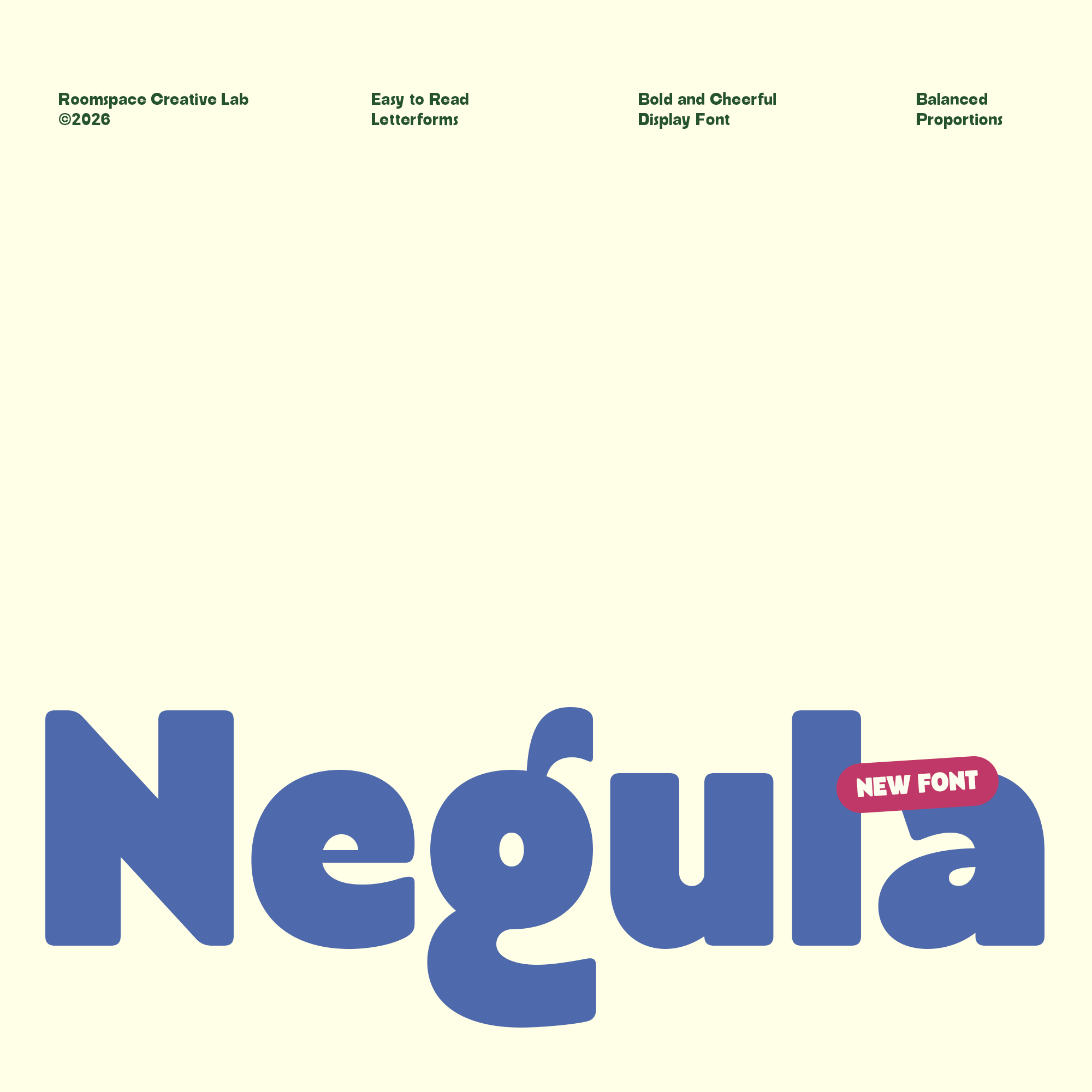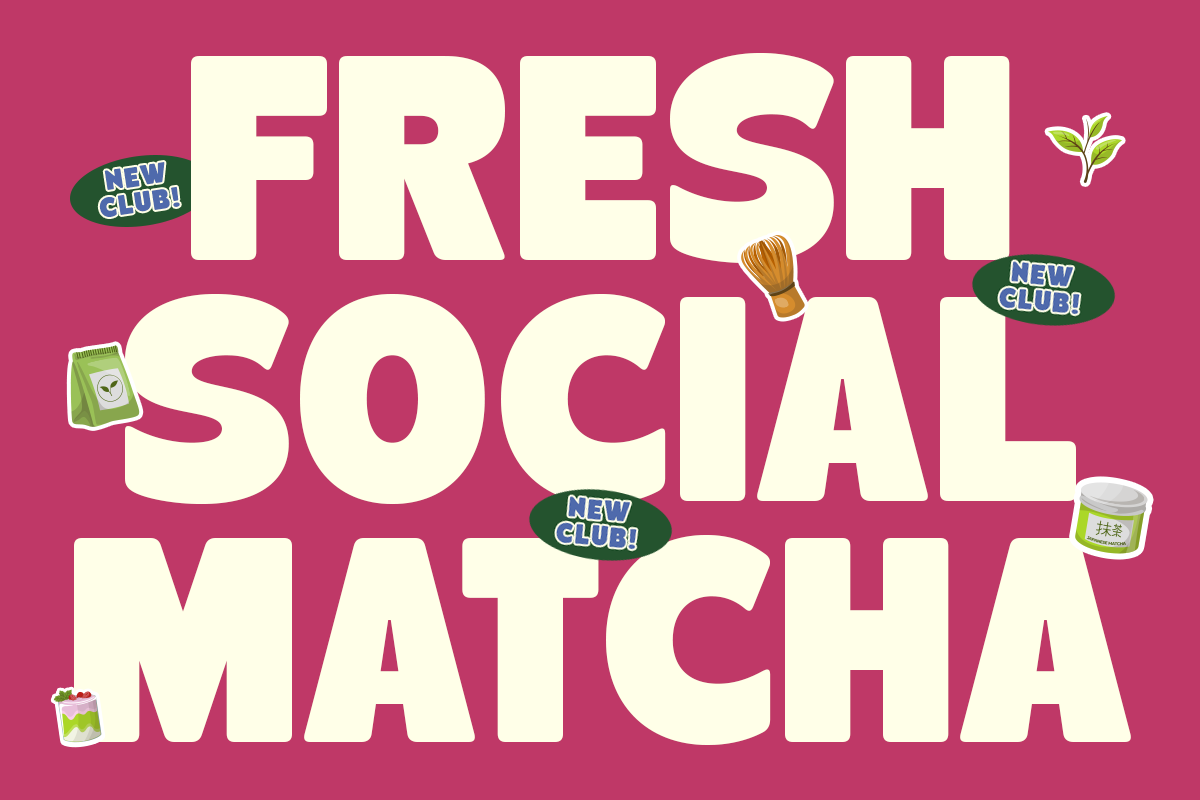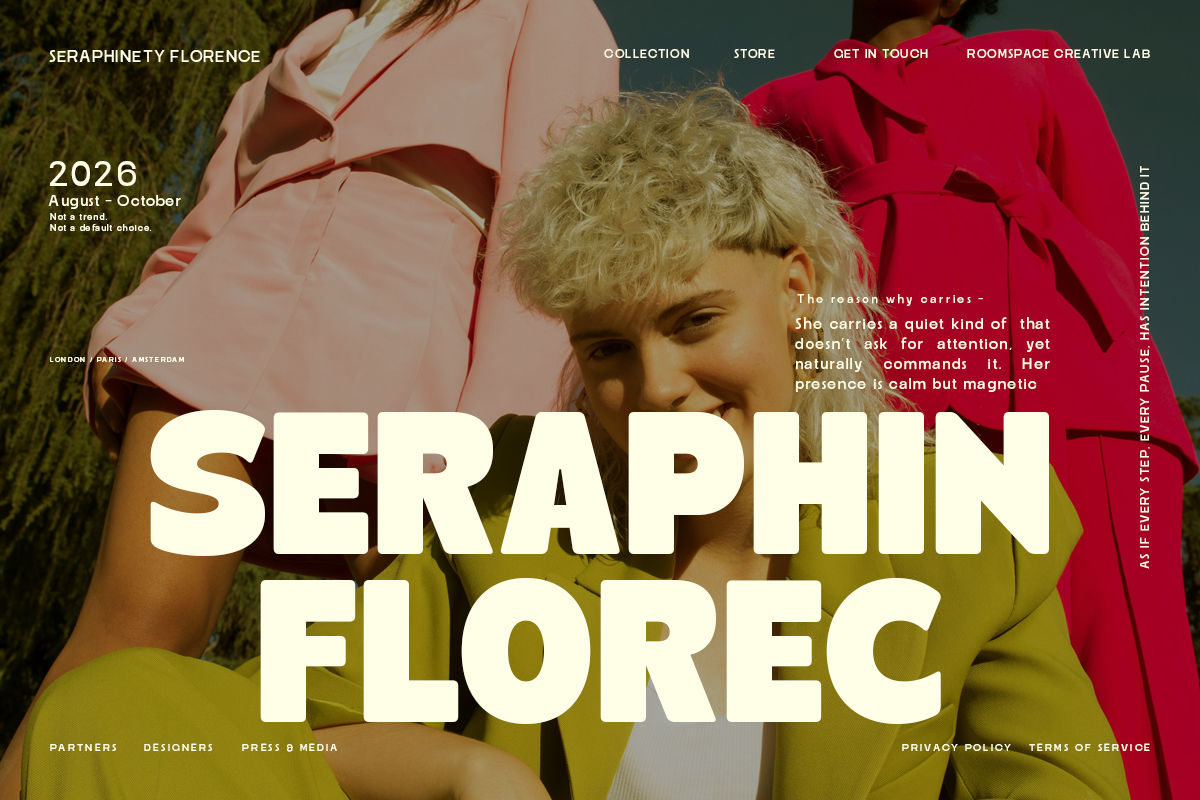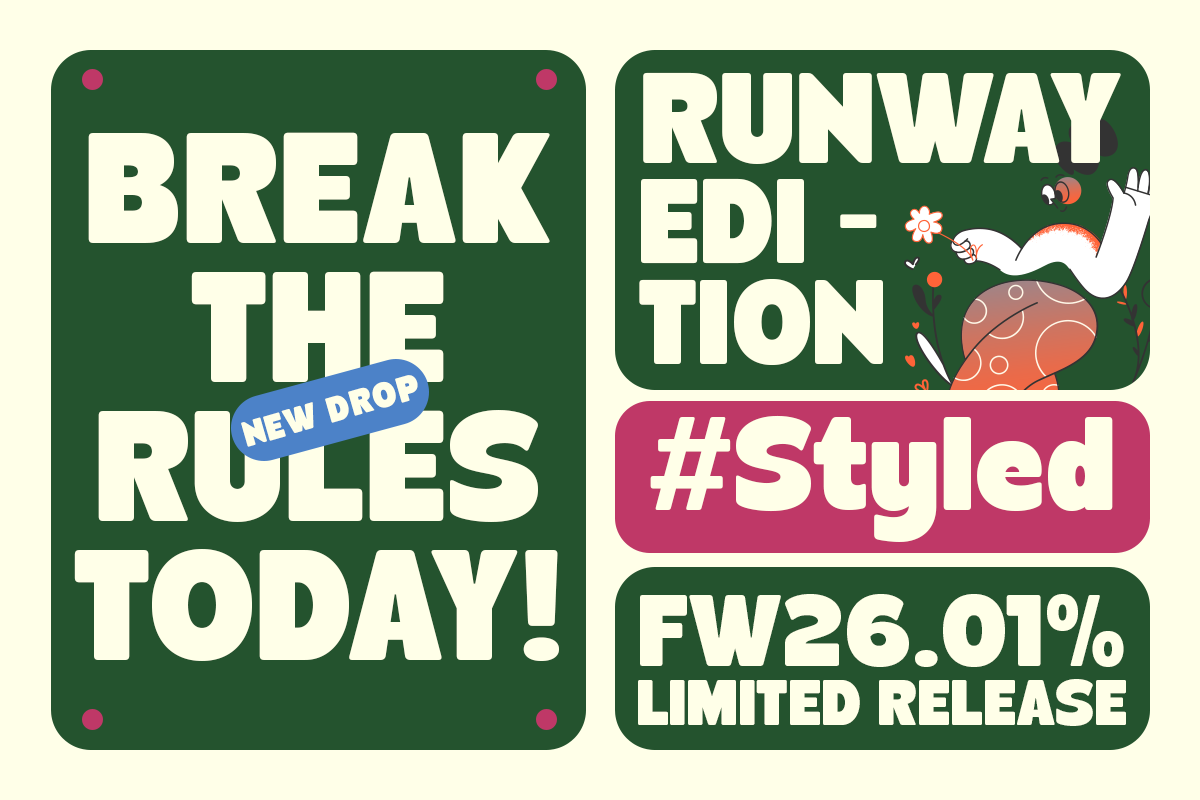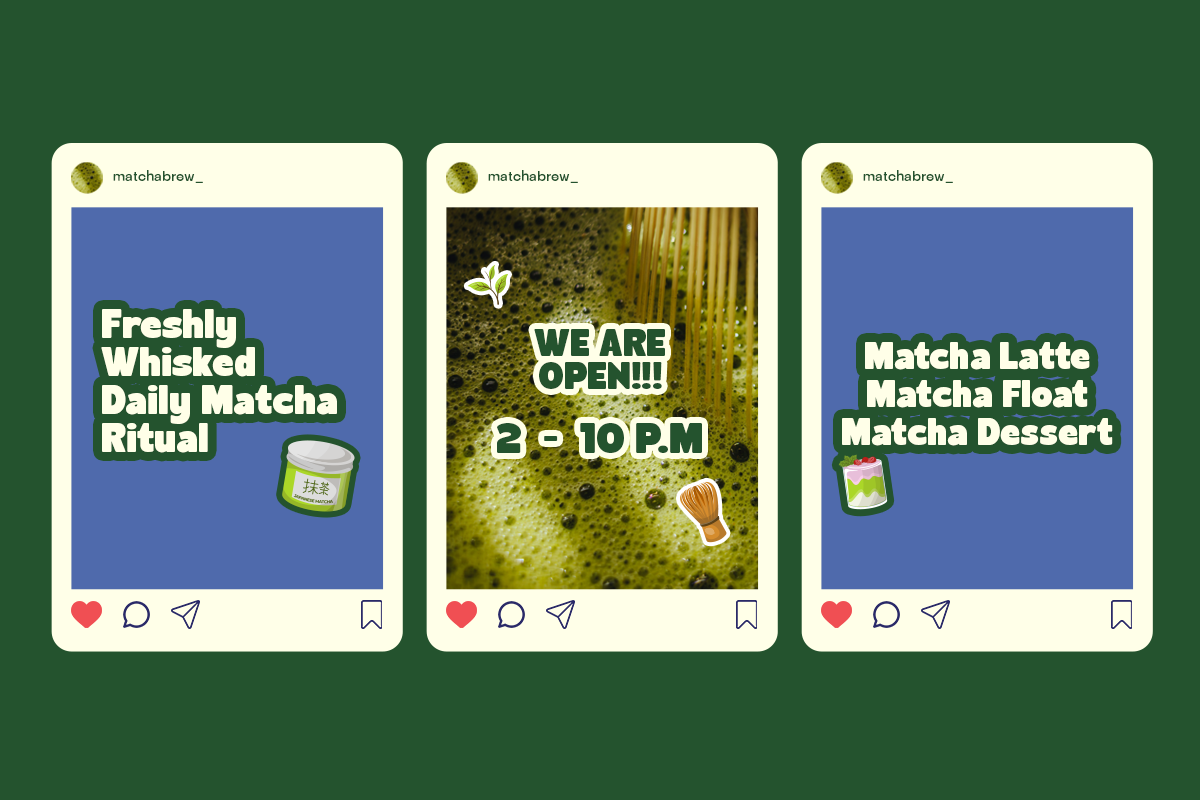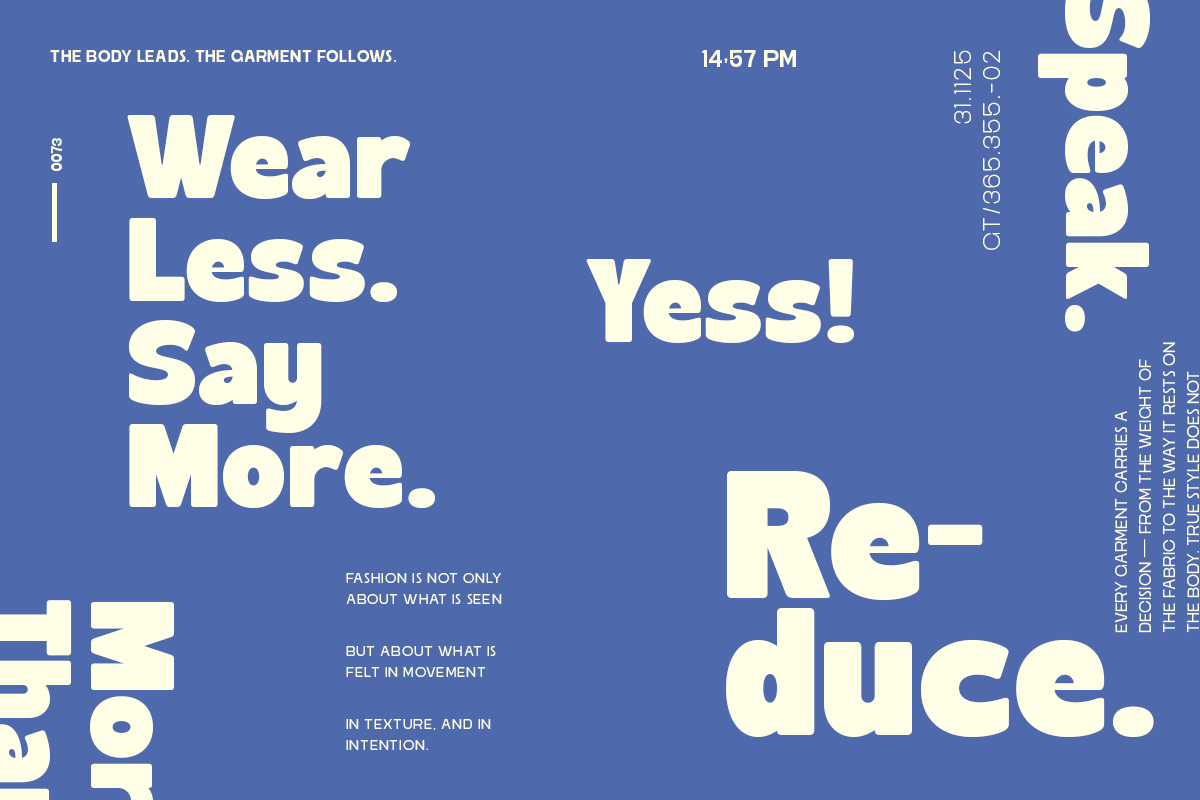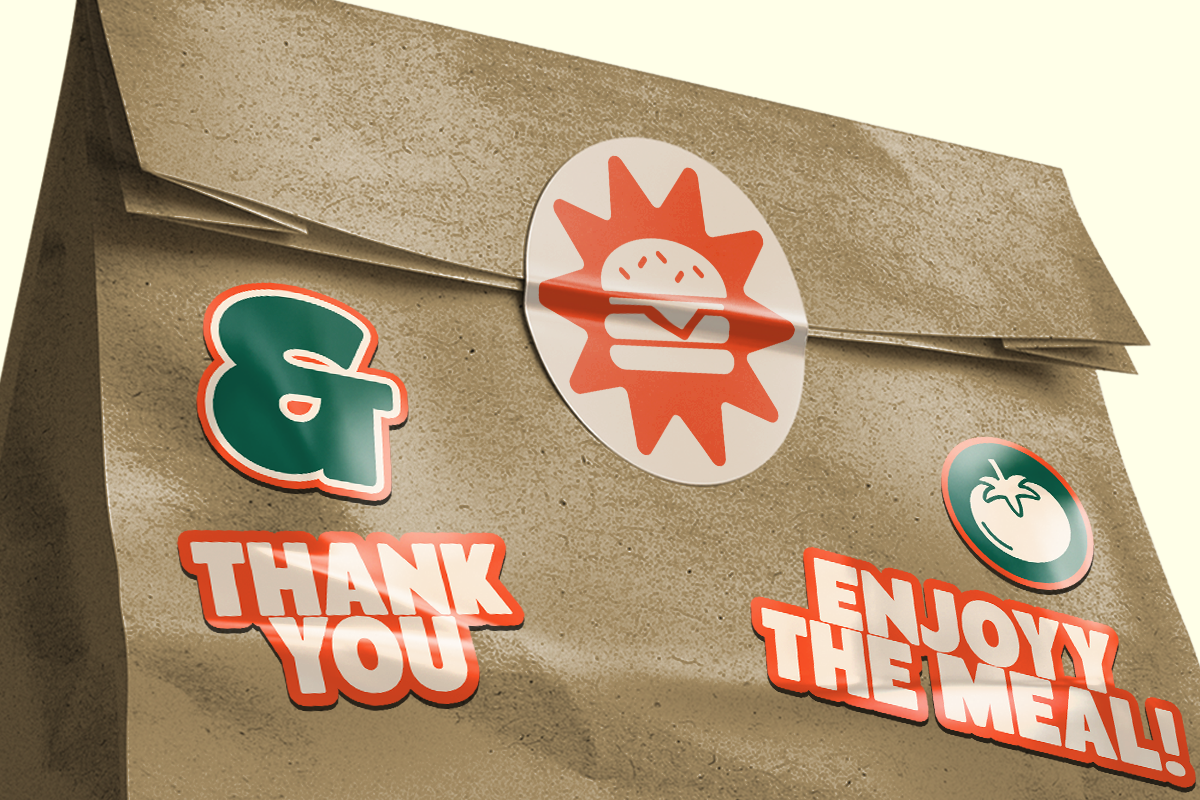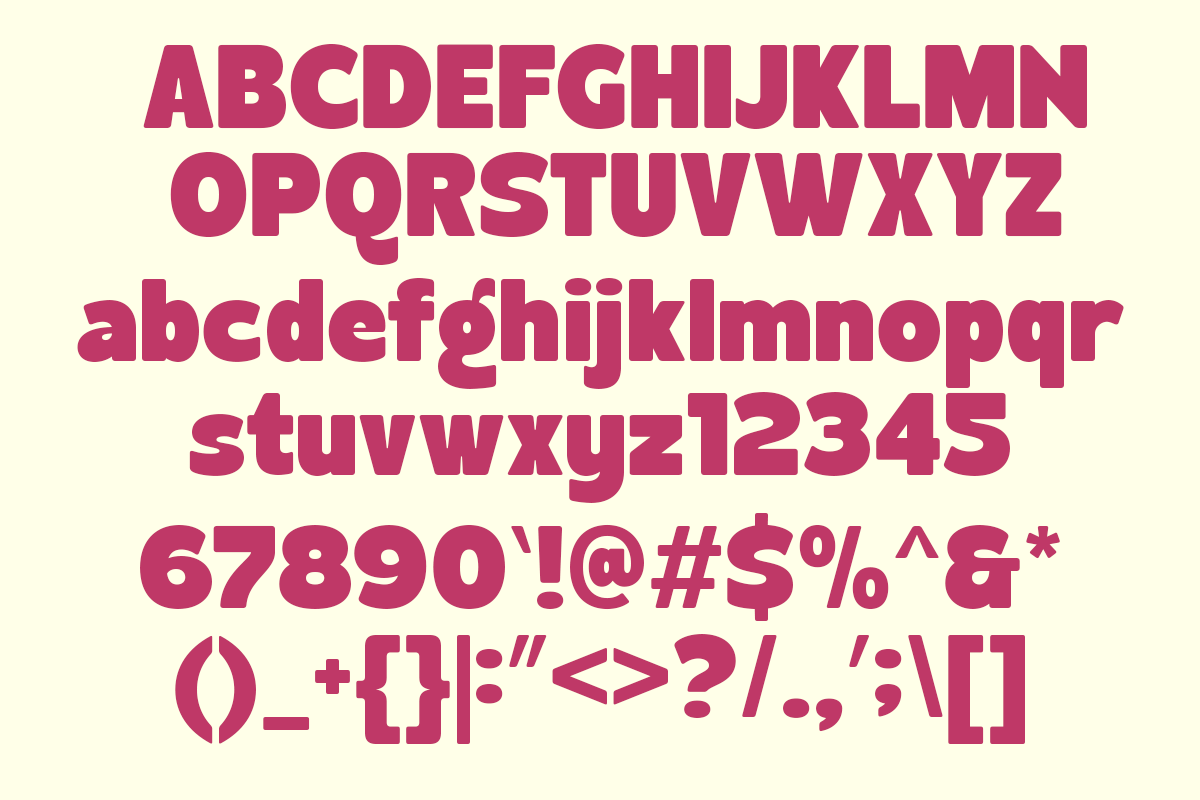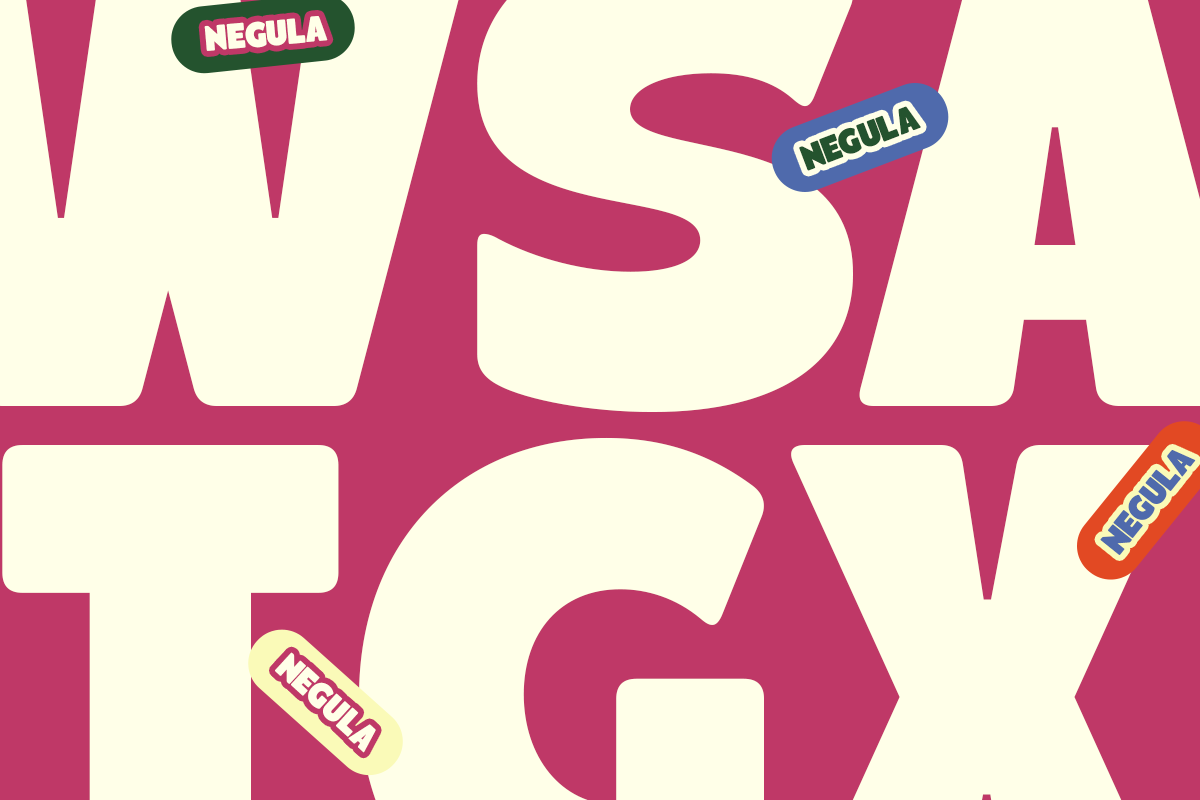
Negula – Bold Rounded Display Typeface
Negula is a bold rounded display font featuring soft curves, balanced proportions, and highly approachable letterforms. Designed for modern brands that want to appear welcoming and memorable, Negula works beautifully across packaging, logos, social media graphics, food branding, children’s products, and lifestyle campaigns. Its cheerful personality instantly creates emotional connection while maintaining excellent readability.
• Bold rounded display design
• Friendly letterforms
• Uppercase & lowercase
• Multilingual support
• Modern balanced proportions
• Display optimized spacing
Negula is a bold rounded display typeface designed with soft curves and balanced proportions, featuring friendly letterforms in both uppercase and lowercase. It includes multilingual support and is available in OTF, TTF, and WOFF formats, with display-optimized spacing for excellent readability.